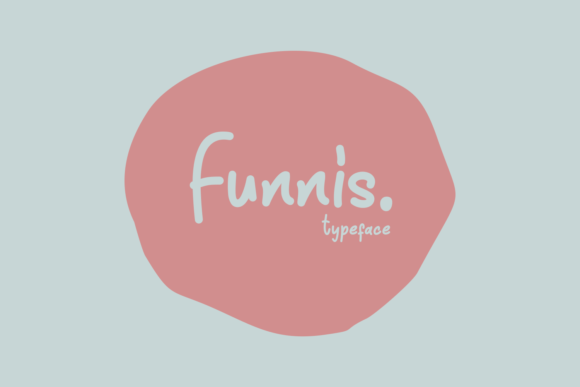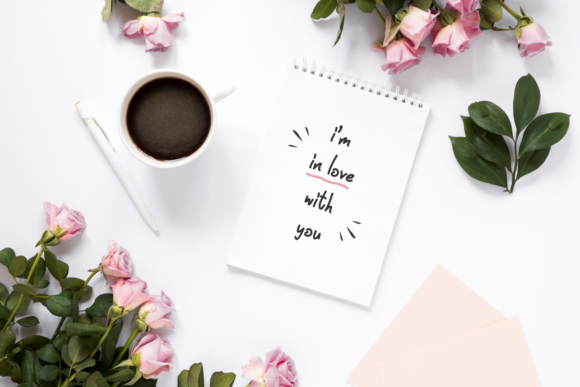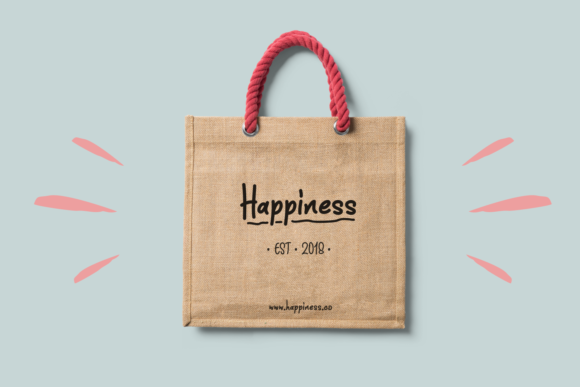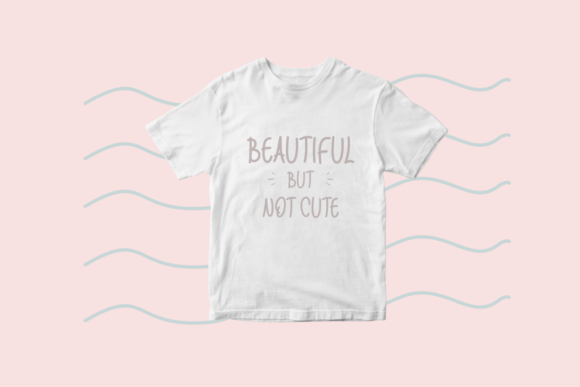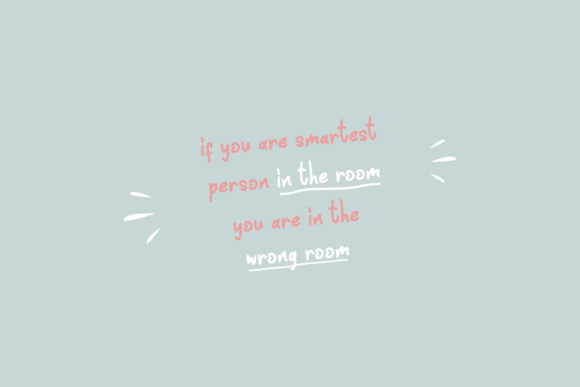
Funnis Font
About Funnis Font
The Funnis is a clean script font. Its bold letters have a great readability and a striking, yet happy feel.
It’s perfect for creating a design which needs to stand out, while maintaining a friendly feel.